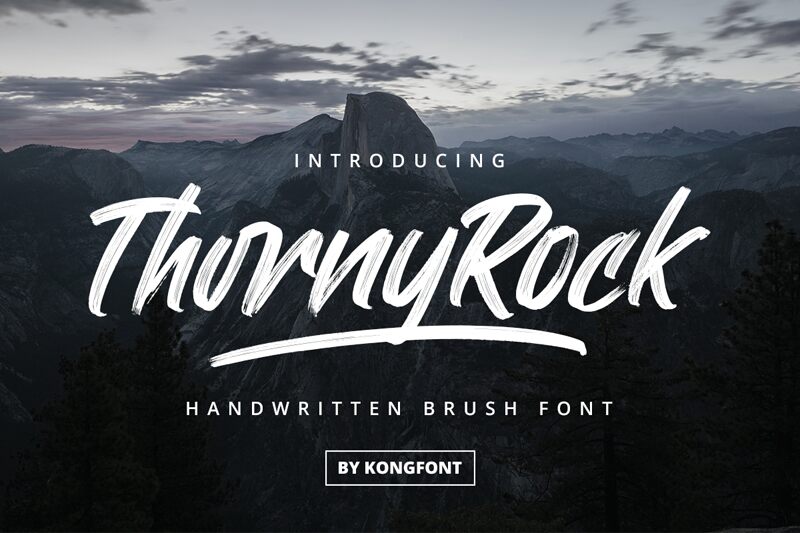
ThornyRock
ThornyRock by Kong Font is a versatile brush font that exudes an edgy and rebellious vibe. Its semi-light weight and semi-condensed width make it perfect for a range of creative projects, from grungy album covers to streetwear logos. This font's rough texture and dynamic strokes add character to any design, making it an excellent choice for branding, packaging, and advertising materials. Whether you're creating posters for a music festival or designing a menu for a hip cafe, ThornyRock will help your text stand out with its bold yet playful style.